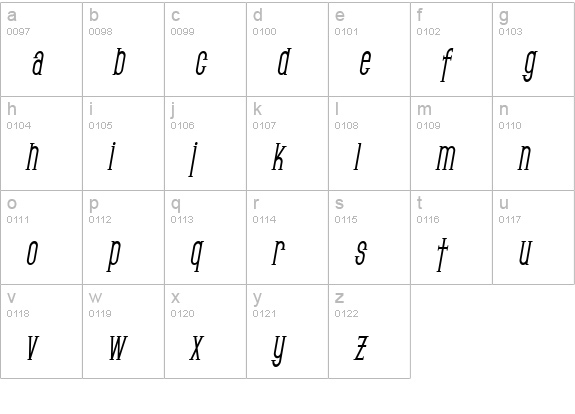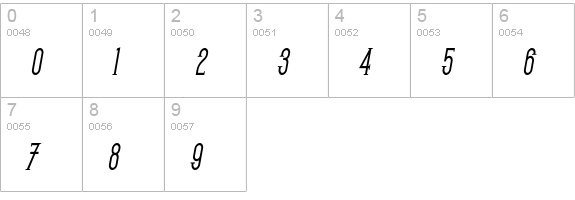
SF Gothican Condensed Bold Oblique Font Details
SF Gothican Condensed Bold Oblique is a strong, high-contrast, condensed-width, italic variant in the SF typeface family \xE2\x80\x94 well suited to headlines, attention-grabbing titles, and strong calls-to-action.
Introducing SF Gothican Condensed Bold Oblique, a captivating and enigmatic font that effortlessly merges the sophistication of Gothic typography with a modern twist. This font exudes an undeniable aura of mystery and intrigue, making it the perfect choice for any design project that requires a touch of darkness and elegance. The bold and condensed nature of SF Gothican Condensed Bold Oblique creates an impactful visual presence, commanding attention in headlines, titles, and logos. Its oblique slant adds a sense of dynamism and movement, injecting a subtle yet powerful energy into your designs. With its carefully crafted curves and meticulously designed letterforms, SF Gothican Condensed Bold Oblique is a testament to precision and craftsmanship. Each character is imbued with an air of Gothic elegance, effortlessly capturing the essence of this iconic typographic style. But what truly sets SF Gothican Condensed Bold Oblique apart is its availability as a free download at FontsMarket.com. We understand the importance of accessibility in design, and thus, we are delighted to offer this exceptional font free of charge. Now, designers and enthusiasts alike can unleash their creativity without any limitations, and elevate their projects with the captivating allure of SF Gothican Condensed Bold Oblique. Whether you're working on a gothic-inspired branding project, a poster for a thrilling event, or a captivating book cover, SF Gothican Condensed Bold Oblique is your ideal companion. Its versatility allows it to seamlessly adapt to various design contexts, while its boldness ensures that your message will be delivered with impact and style. Don't miss the opportunity to harness the power of SF Gothican Condensed Bold Oblique. Download it freely at FontsMarket.com and unlock a world of endless design possibilities. Elevate your creations with the captivating allure of this remarkable font, and watch as your designs come to life with a touch of gothic elegance.